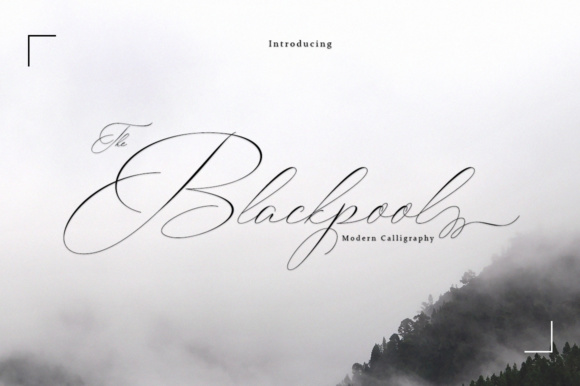
Prepare to be mesmerized by Blackpool Font, a spectacular script font that will infuse your designs with a wave of elegance and sophistication. Crafted with meticulous precision by the renowned Teweka, Blackpool Font stands as a testament to modern calligraphy, effortlessly blending classic charm with a contemporary twist.
Unleash your creativity and elevate your designs with Blackpool Font's mesmerizing swashes, each stroke dancing across the page like a delicate ballet. Experience the transformative power of typography as your designs take on an air of professionalism and sophistication that is sure to leave a lasting impression.
Step into the spotlight and shine like a star with Blackpool Font. Its versatility knows no bounds, making it the perfect choice for a myriad of projects. Create awe-inspiring ads that demand attention, craft sales materials that convert like magic, design logos that exude authority, and build brands that resonate with your audience.
With Blackpool Font at your fingertips, social media becomes your canvas, a tapestry of captivating text overlays that engage and enthrall your followers. Transform your online presence into a feast for the eyes, leaving your audience spellbound by your creative brilliance.
Join the ranks of design luminaries and embark on a journey to crafting designs that transcend the ordinary. Blackpool Font is your secret weapon, the key to unlocking your true potential as a creative force. Don't let mediocrity hold you back; embrace the power of Blackpool Font today and watch your designs soar to new heights!